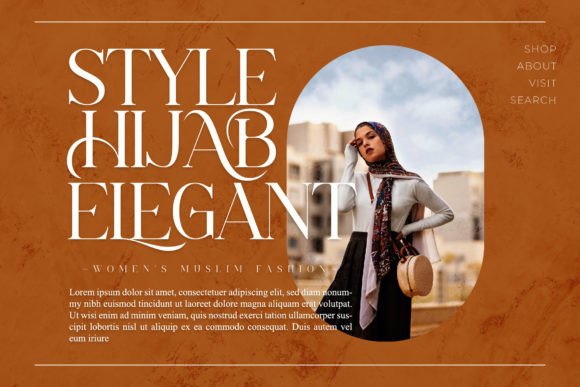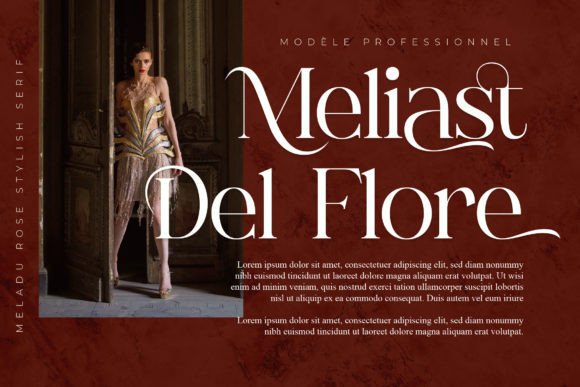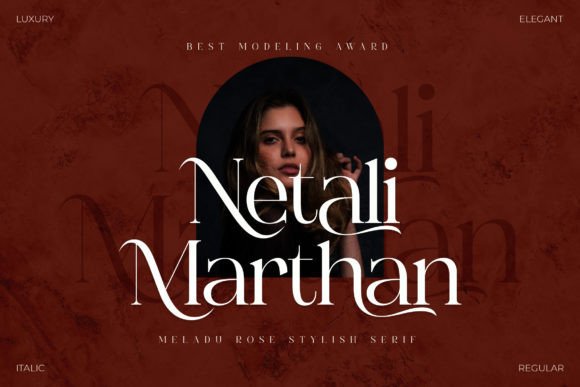
Introduction to Meladu Rose Font
Imagine you’re working on a creative project, pouring your heart and soul into every detail, and then it hits you – the perfect font to elevate your design. The Meladu Rose Font is that elusive yet magical element that can transform your project from good to exceptional.
As designers, we’re always on the lookout for that special something that sets our work apart. The Meladu Rose Font is a modern and classic serif font that exudes elegance and sophistication, making it the perfect addition to any design. Whether you’re creating a luxury logo, designing a book title, or crafting a fashion brand, this font is a valuable resource that can take your project to the next level.
Key Features of Meladu Rose Font
- High-quality design resource perfect for creative projects and personal use
- Features a unique, elegant design that’s perfect for a variety of creative projects, from logos to typography
Honest Review: Meladu Rose Font
I recently had the chance to work with the Meladu Rose Font, and I must say it’s a delightful addition to any design project. As a design resource, it offers a lot of versatility and can be easily used for a variety of creative projects.
- ✨ High-quality design that exudes elegance and sophistication.
- ✨ The font is highly customizable, making it perfect for designers who want to add a personal touch to their work.
- ⚠️ Limited range of styles and variations within the font family.
Overall, I was impressed by the Meladu Rose Font’s beauty and functionality. While it may have some limitations, it’s a solid choice for designers working on smaller projects or looking for a high-quality free download to add some flair to their designs.
Meladu Rose Font is perfect for a variety of creative projects, including wedding invitations, birthday cards, and other special occasion designs. Its elegant and sophisticated style makes it ideal for use in luxury branding, high-end marketing materials, and other professional designs.